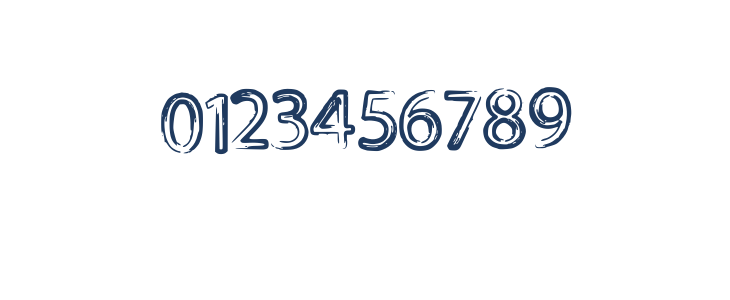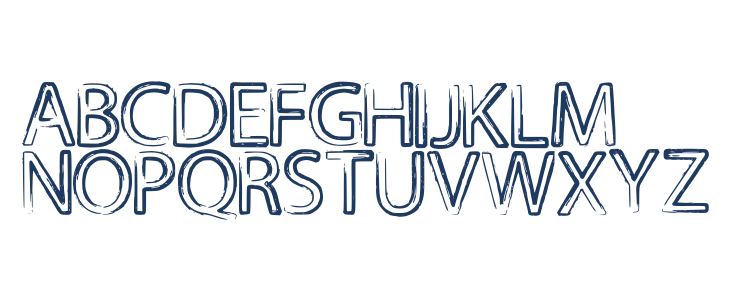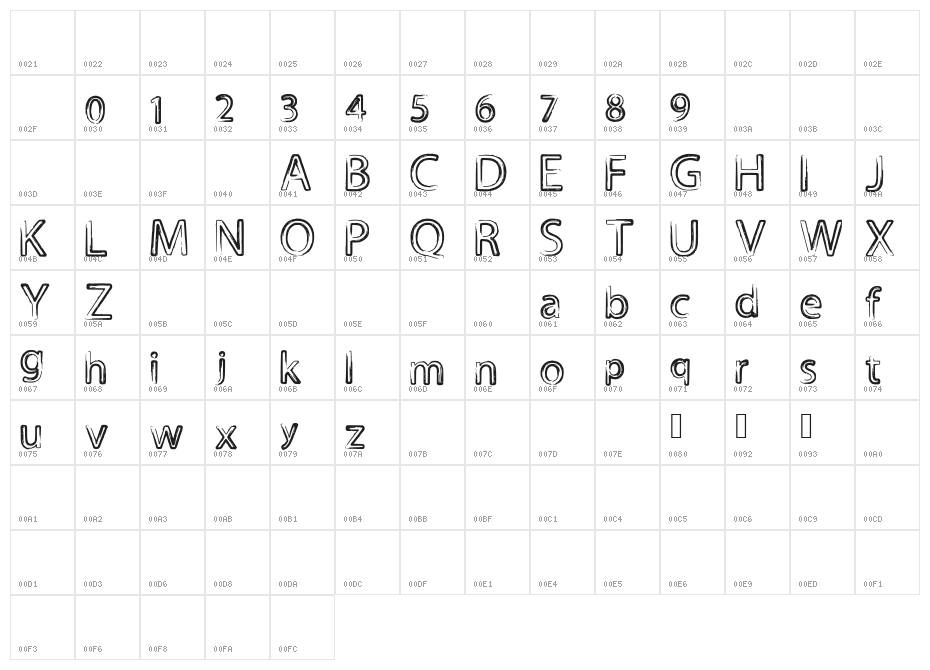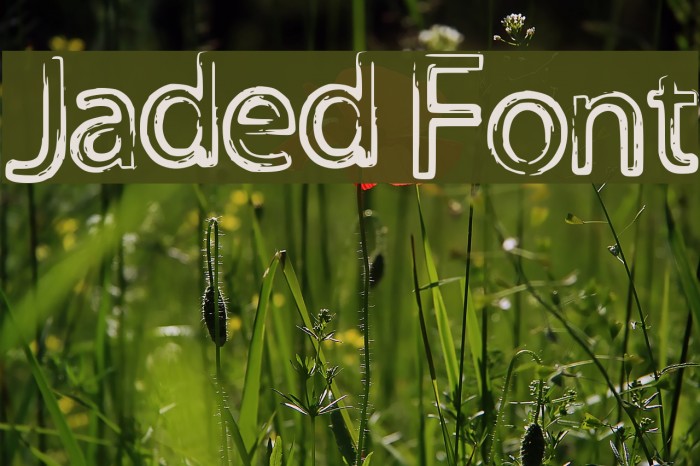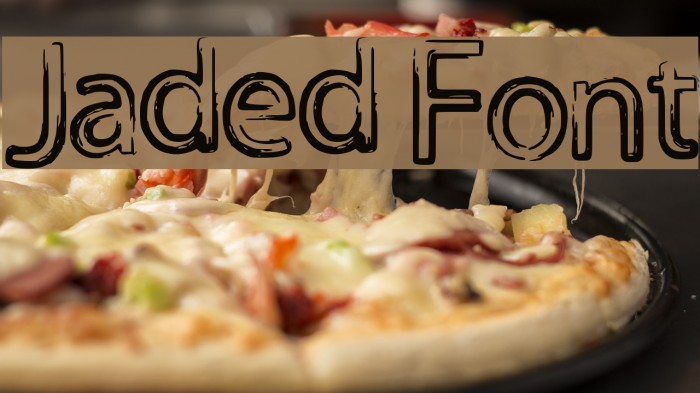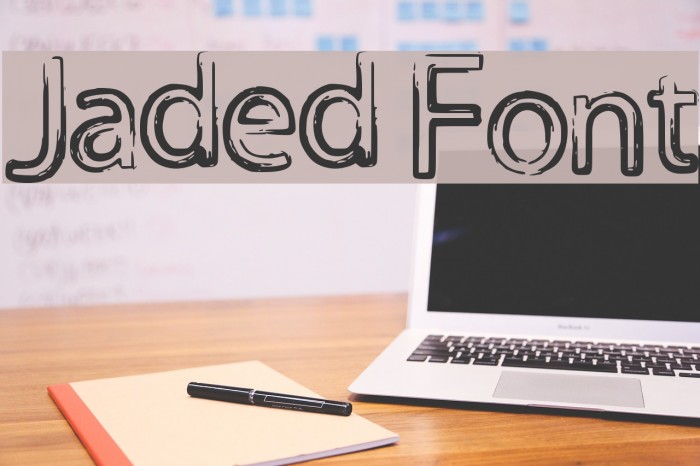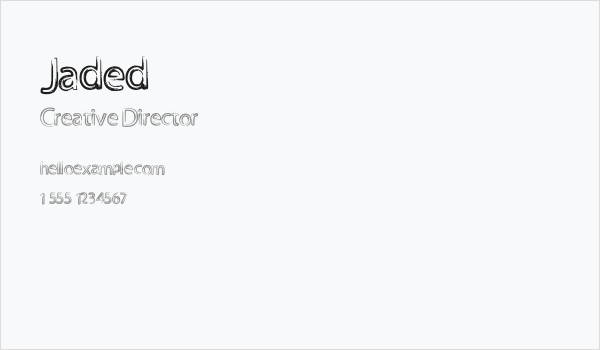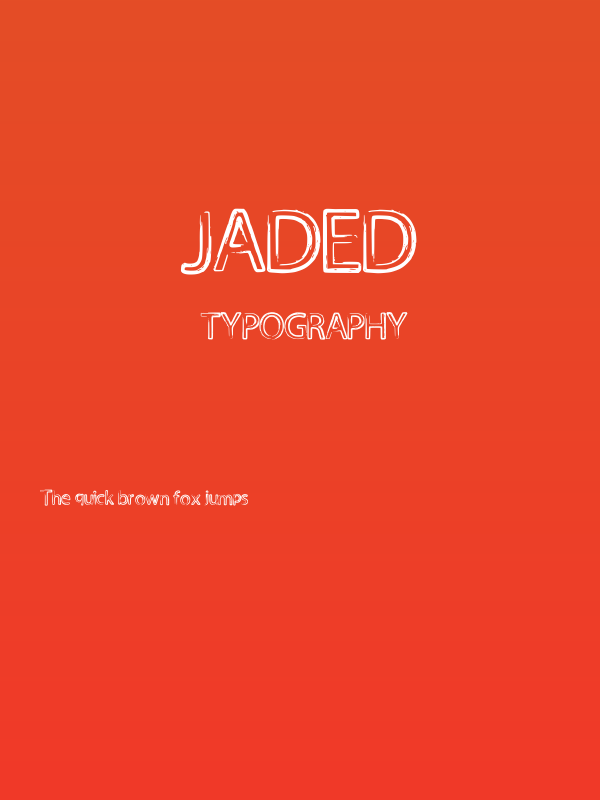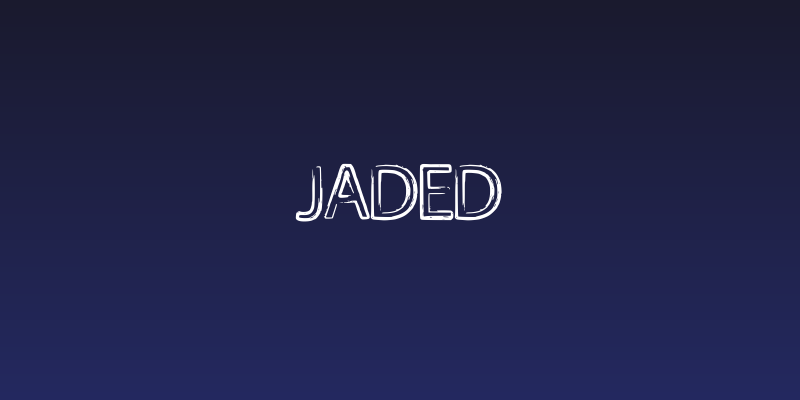
Jaded Font
Jaded Description
This font features a bold and distressed style, with a unique hand-drawn appearance. The characters have a rough, textured outline that gives them a grunge-like aesthetic. The uppercase and lowercase letters maintain a consistent height, while the numbers and special characters follow the same design pattern. This font's distinctive look makes it suitable for projects that require a bold statement or an edgy, artistic touch. The irregularities in the strokes add to its charm, making it stand out in any design.
| Proposed Projects | Ideal for album covers, posters, urban-themed designs, or any project needing a bold, artistic flair. |